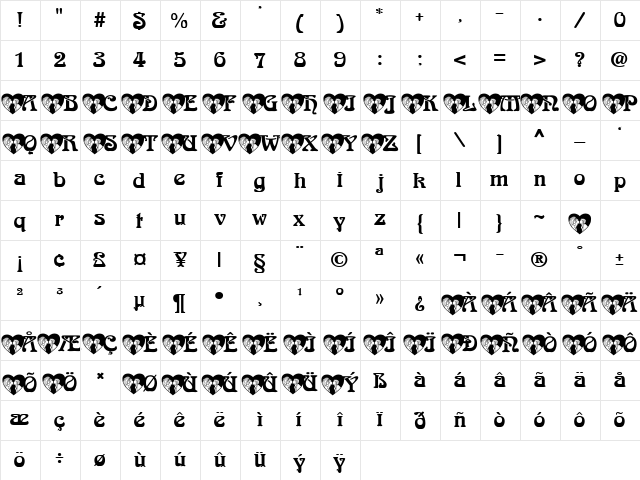
WeddingBlack Becker Normal
WeddingBlack Becker is a composed and adaptable typeface that performs quietly and consistently across a wide range of design contexts.